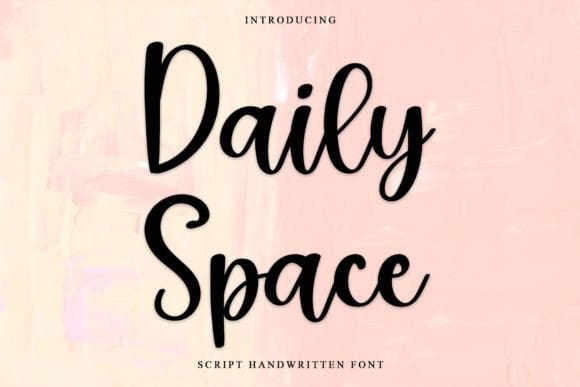
Daily Space Font
Daily Space Font is a neat and beautiful handwritten font described by an elegant touch, perfect for your favorite projects. Fall in love with its incredibly distinct and timeless style, and use it to create spectacular designs!